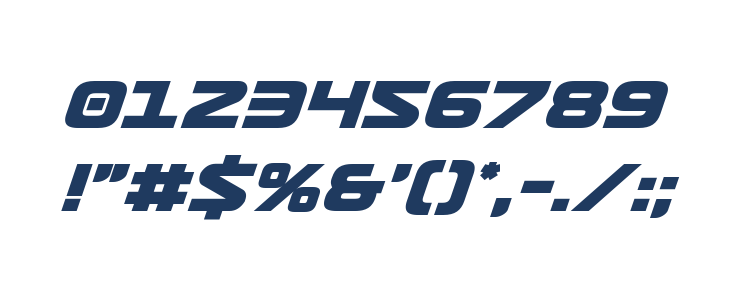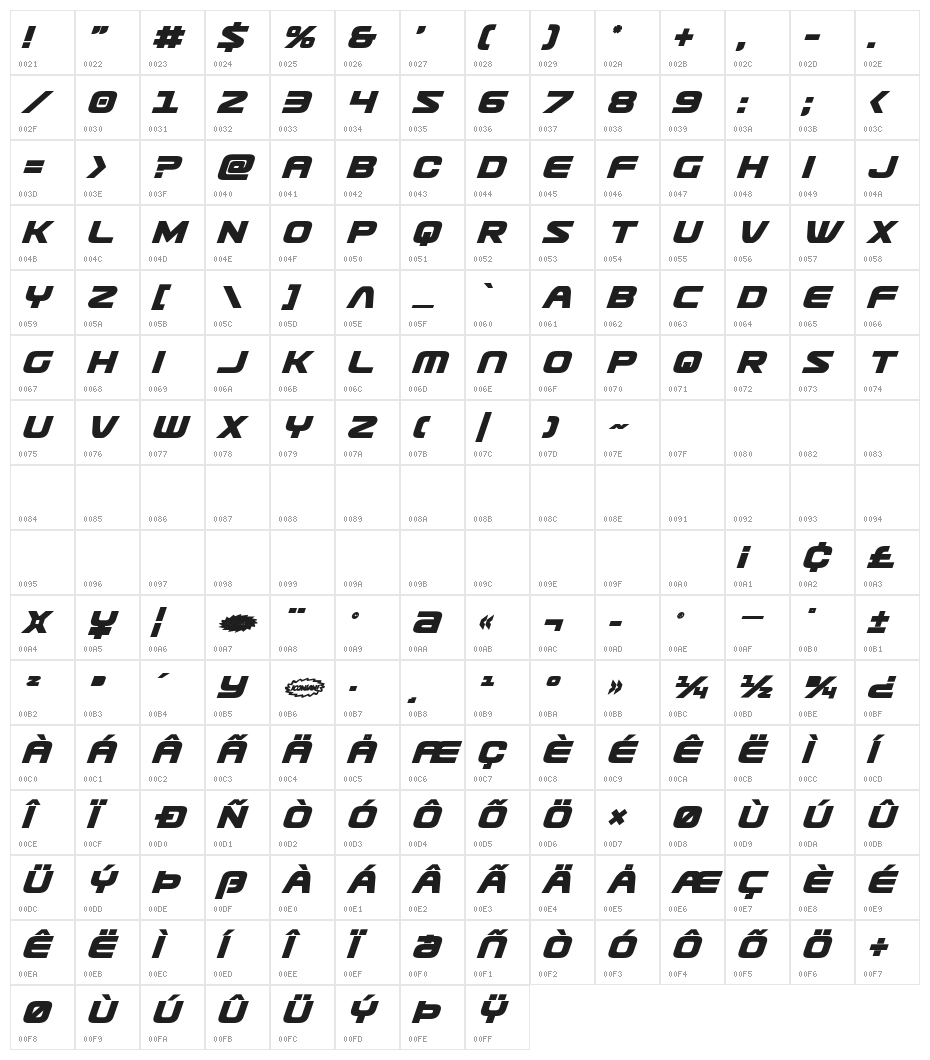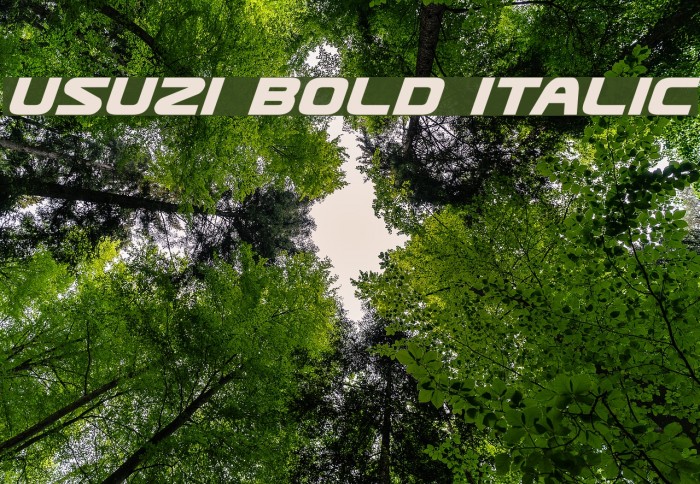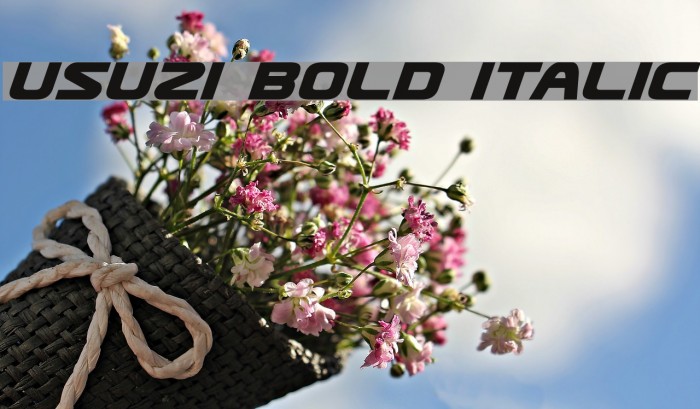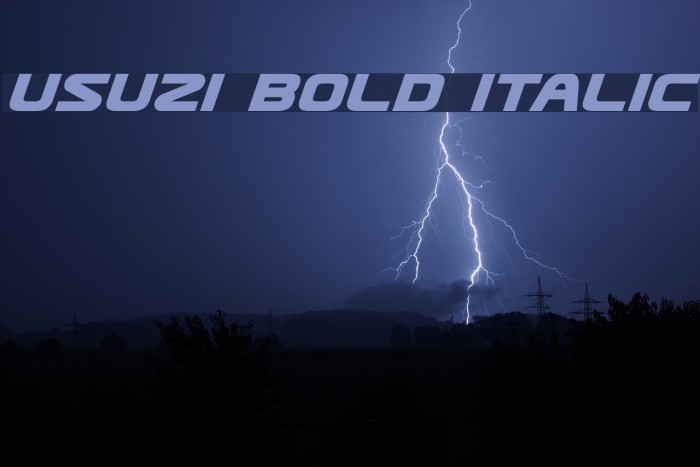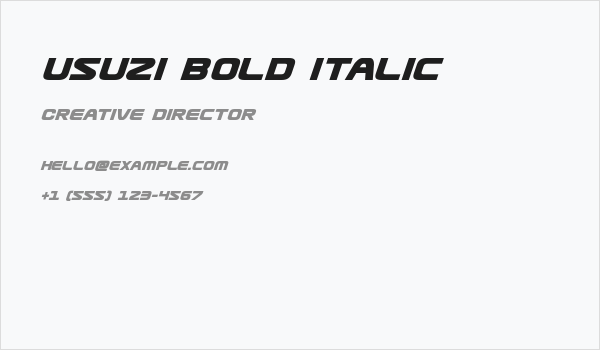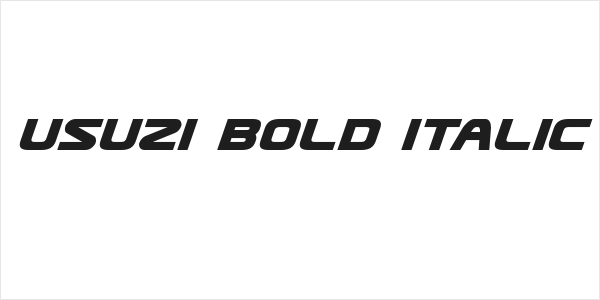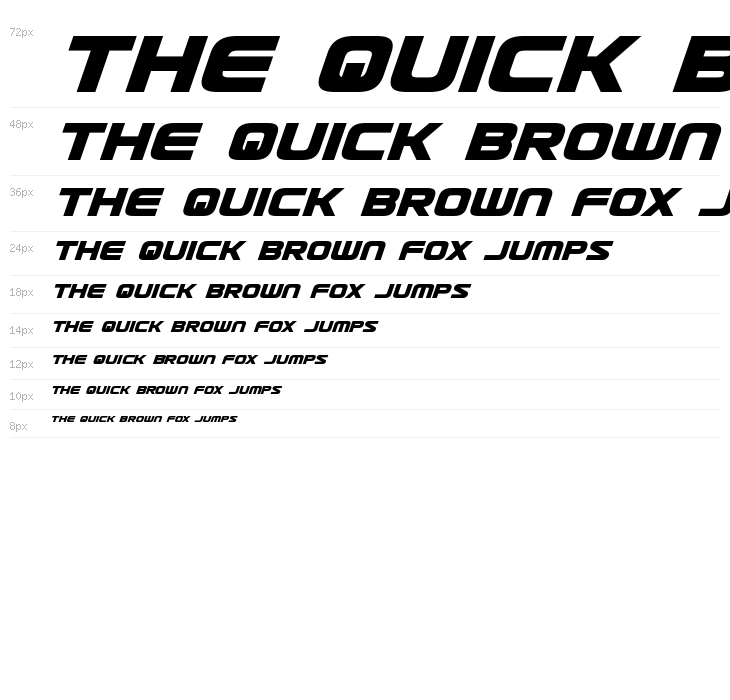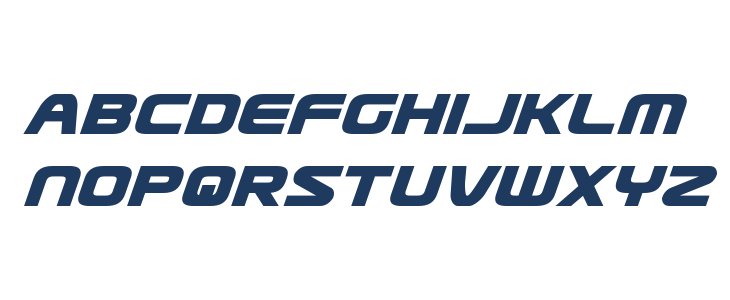
Usuzi Bold Italic Font
Usuzi Bold Italic Description
This font features a bold and italicized style with a modern and dynamic appearance. The characters are slightly slanted, giving a sense of motion and energy. The strokes are thick and consistent, providing a strong visual impact. The design is clean and geometric, with sharp angles and a futuristic feel. The uppercase and lowercase letters maintain a uniform width, contributing to a cohesive look. The numerals are equally bold, ensuring readability and emphasis. Special characters are well-integrated, matching the overall aesthetic.